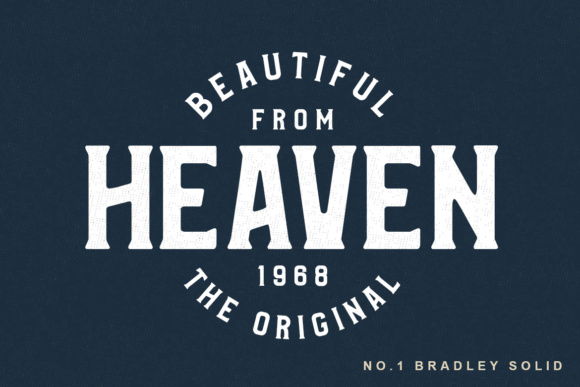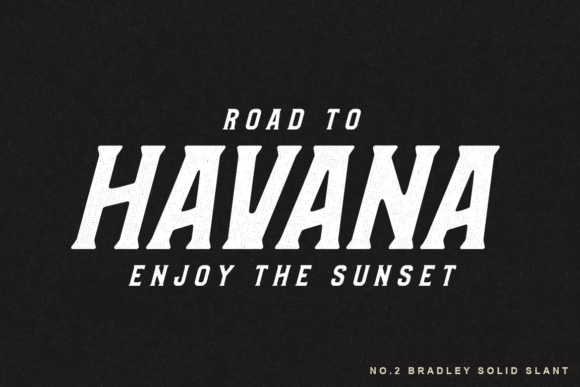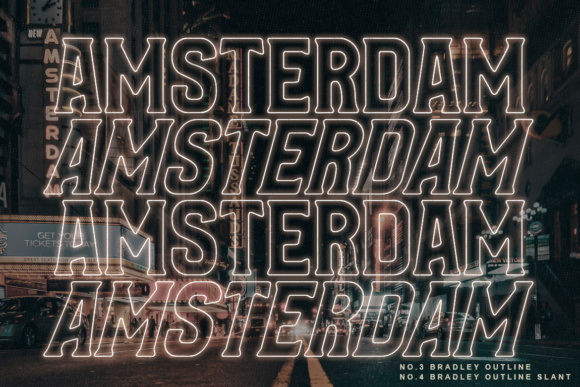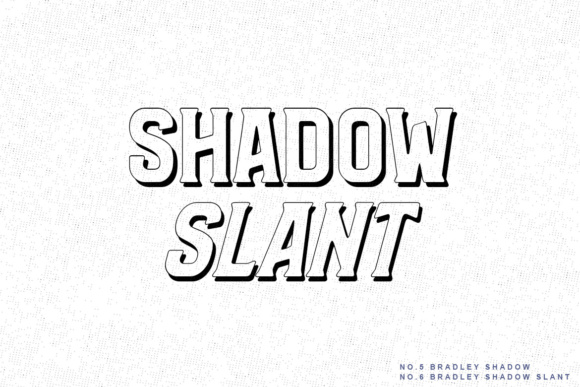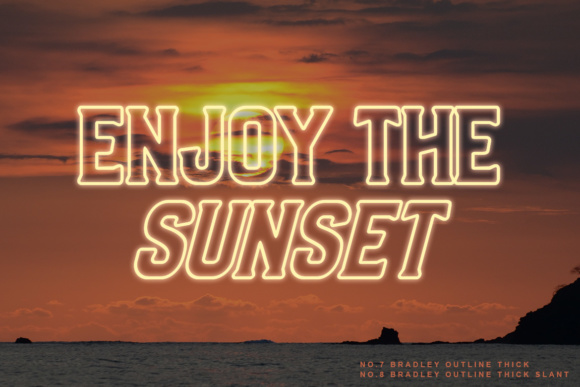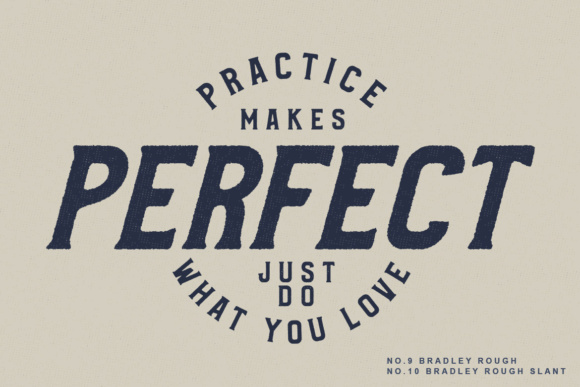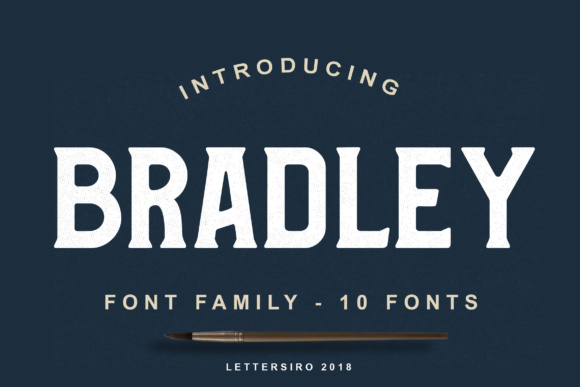
The Power of Typography: Discovering the Bradley Family Font
I’ll never forget the design struggle I faced while working on a project for a bold, edgy client. I had to convey a sense of strength and confidence through typography, but my go-to fonts just weren’t cutting it. That’s when I stumbled upon the Bradley Family Font, and it completely transformed my design. In this article, I’ll share my experience with this versatile font family and explore its features, uses, and alternatives.
The Bradley Family Font has become a staple in my design toolkit, and here’s why:
• ✨ **Versatility**: With 10 members in the family, I can mix and match styles to create a unique visual hierarchy.
• ✅ **Bold and Memorable**: This font family is seriously bold, making it perfect for headlines, titles, and emphasis.
• ⚡️ **Easy to Read**: Despite its boldness, the font remains surprisingly legible, even at smaller sizes.
However, I do have a few minor quibbles:
• 🤔 **Limited Italics**: While the font family has some fantastic styles, I wish there were more italic options.
• ⚠️ **Occasional Kerning Issues**: I’ve noticed some minor kerning issues, especially when using certain character combinations.
3. Experiment with different styles and OpenType features, such as glyphs and stylistic alternates, to add visual interest.
Exploring Alternatives: Similar Fonts to the Bradley Family
If you’re looking for similar fonts or want to explore other options, consider these alternatives:
• Montserrat: A sleek, urban font with a geometric feel, perfect for modern designs.
• Rockwell: A classic, sturdy font with a nostalgic feel, great for headlines and titles.
• Impact: A bold, sans-serif font with a strong presence, ideal for emphasis and attention-grabbing text.
• Arial Black: A bold, condensed font with a retro feel, suitable for bold statements and titles.
The Design Story Behind the Bradley Family Font
The Bradley Family Font was designed with the goal of creating a versatile, bold font family that could be used for a wide range of applications. Inspired by classic sans-serif fonts, the designer aimed to create a modern, edgy feel that’s both memorable and legible. While the true story behind the font’s creation may be unknown, its impact on designers and creatives is undeniable.
Font Name Bradley Family Font
Author Lettersiro Co.
What makes the Bradley Family Font so versatile? The font family consists of 10 members, offering a range of styles to suit different design needs.
Is the Bradley Family Font suitable for body text? While it’s bold and attention-grabbing, the font may not be ideal for extended body text due to its boldness and potential legibility issues at smaller sizes.